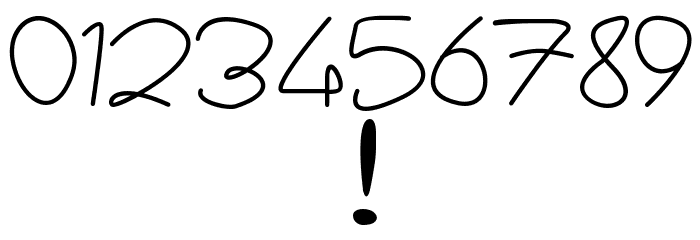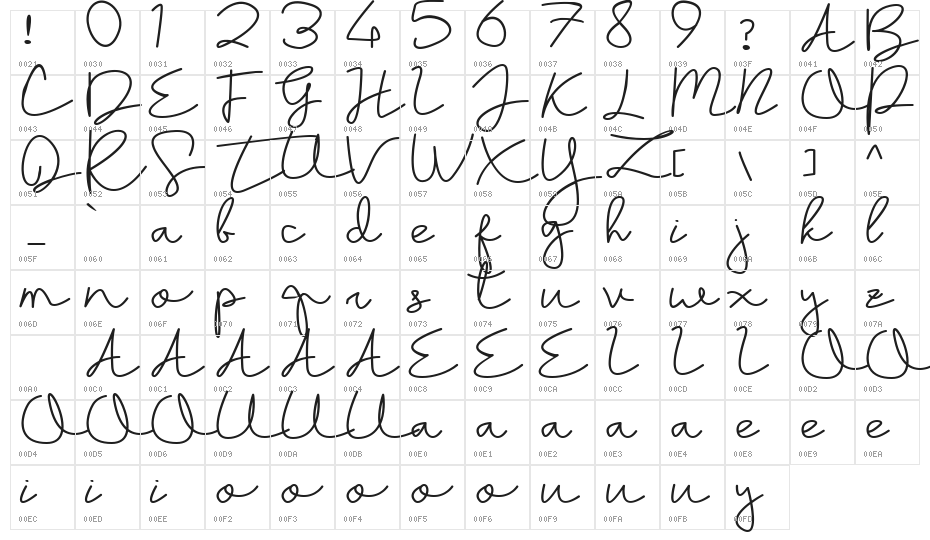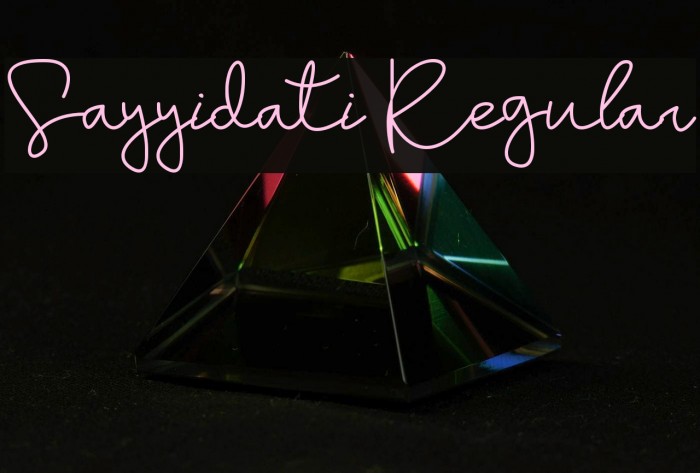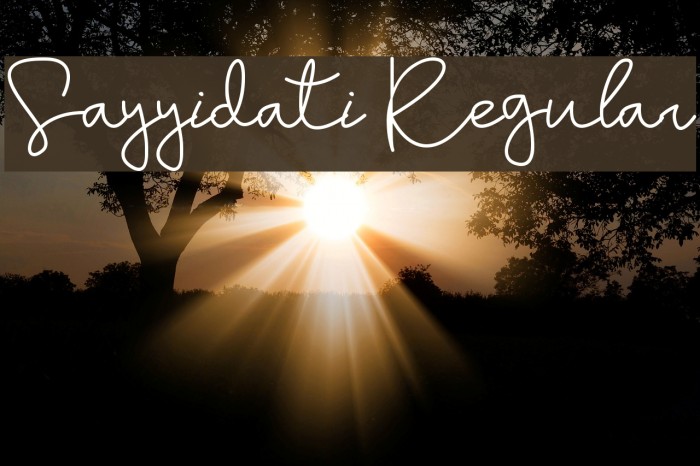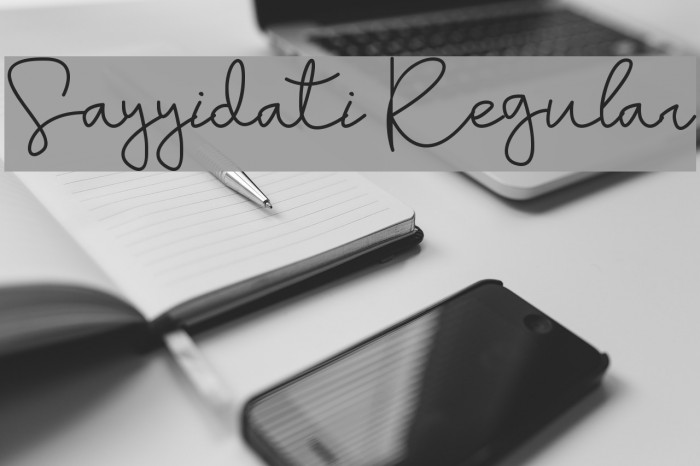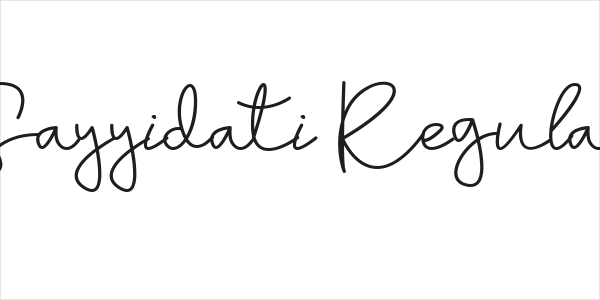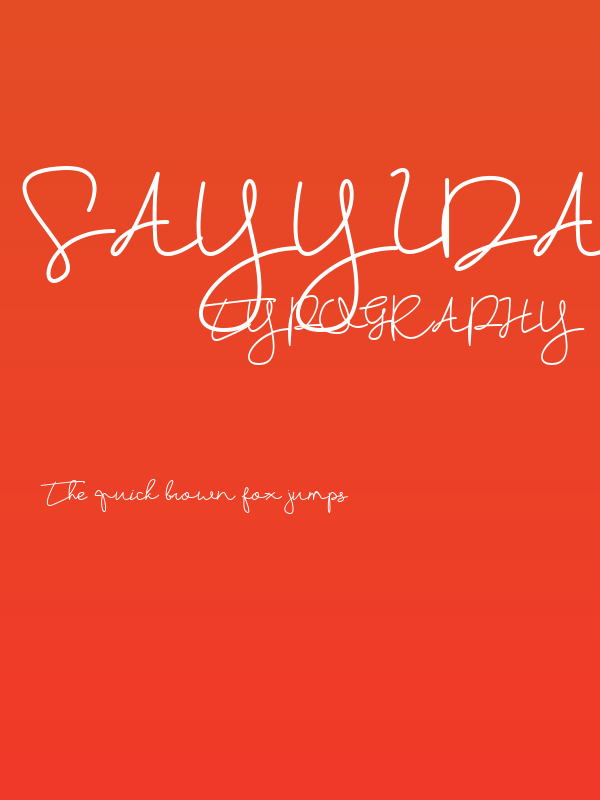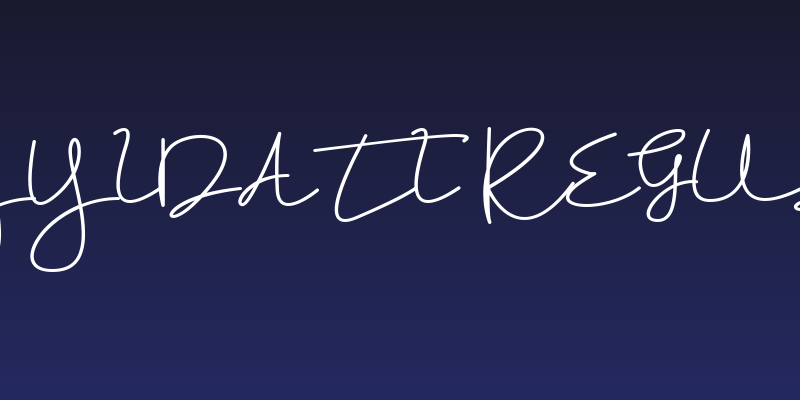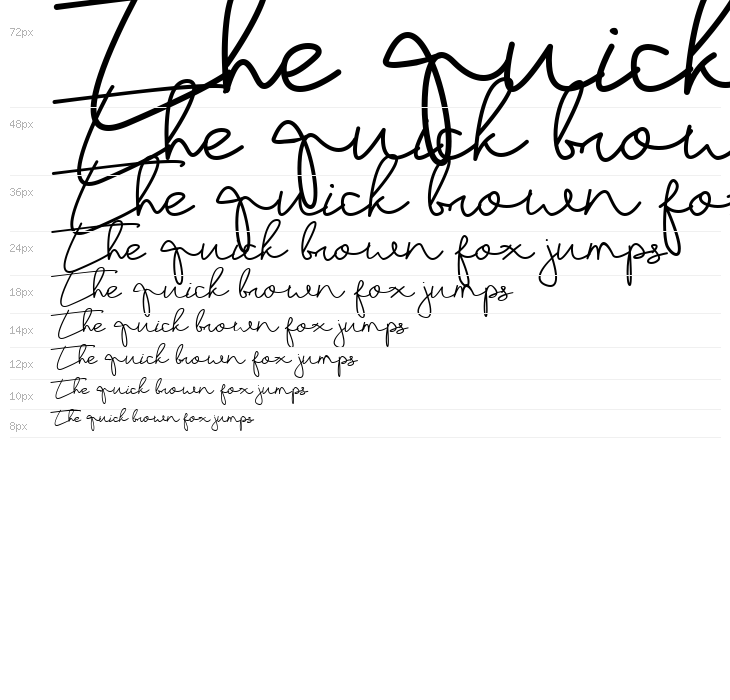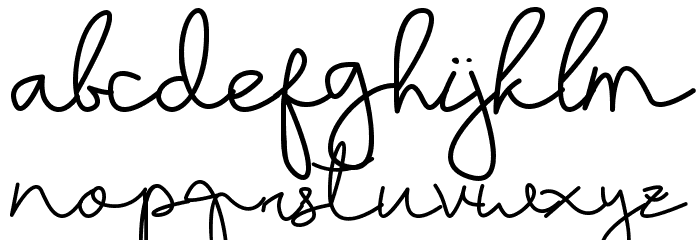
Sayyidati Regular Font
Sayyidati Regular Description
This font features a flowing, handwritten style that exudes elegance and personality. The uppercase letters are tall and slightly narrow, with a consistent stroke width that gives them a refined appearance. The lowercase letters are more playful, with loops and curves that add a touch of whimsy. The numbers are clear and legible, maintaining the same handwritten feel. Special characters like the exclamation mark and question mark are designed with the same fluidity, ensuring a cohesive look across all characters. This font is perfect for projects that require a personal touch, such as invitations, greeting cards, or branding for creative businesses.
Use CaseLogos, Headlines, Personal projects
Proposed ProjectsIdeal for invitations, greeting cards, personal branding, and creative projects.